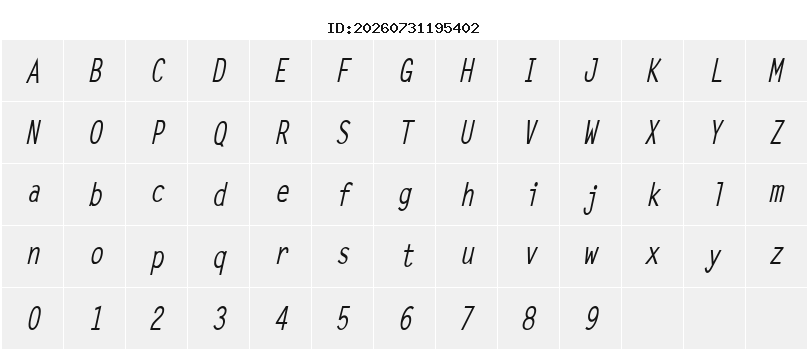
• Font Name: Lechter Condensed
About Lechter Condensed.ttf
Lechter Condensed.ttf is a modern, elegant sans-serif font designed for ultimate readability and visual harmony. Perfect for branding, headlines, web design, and print materials.